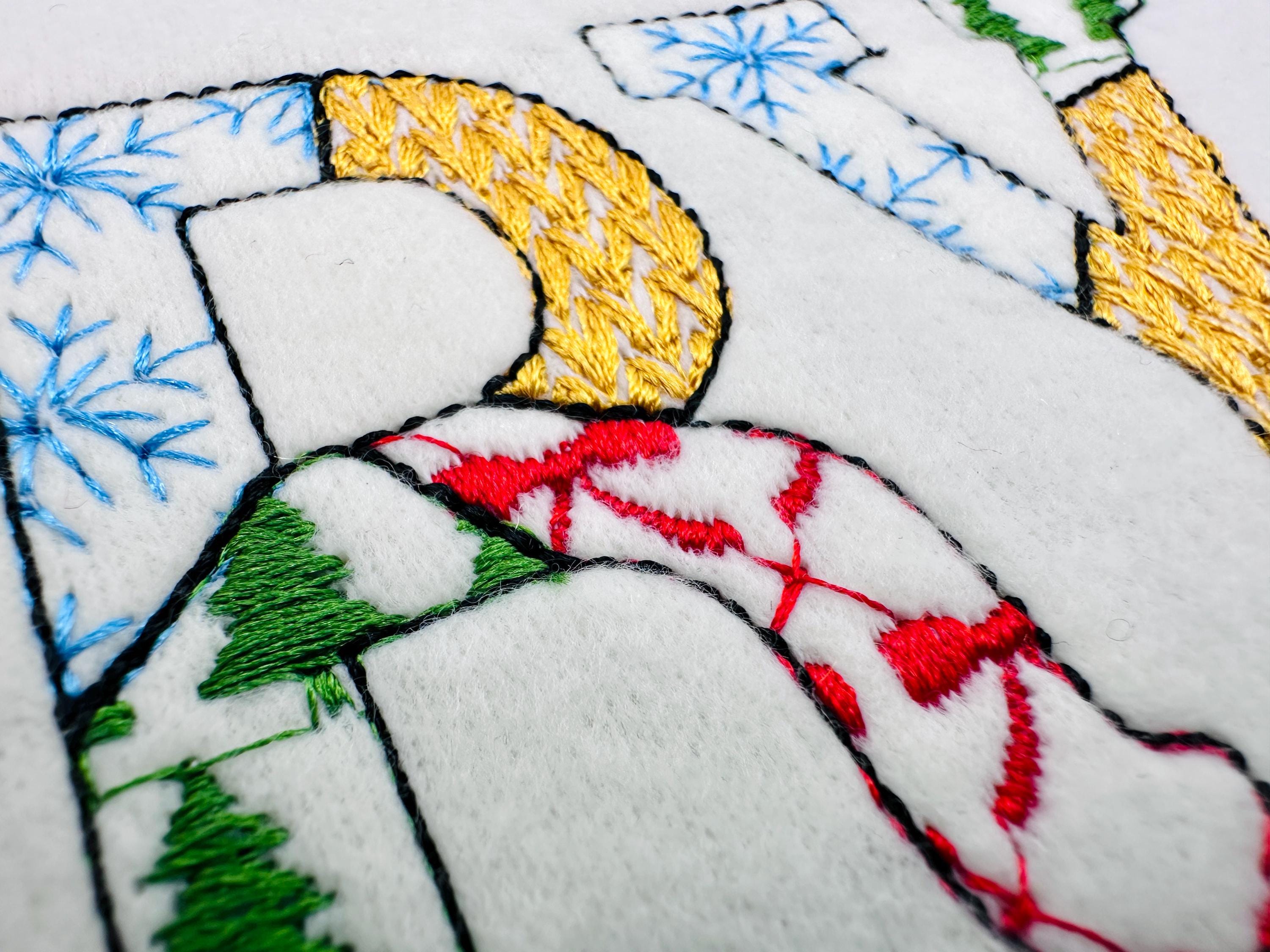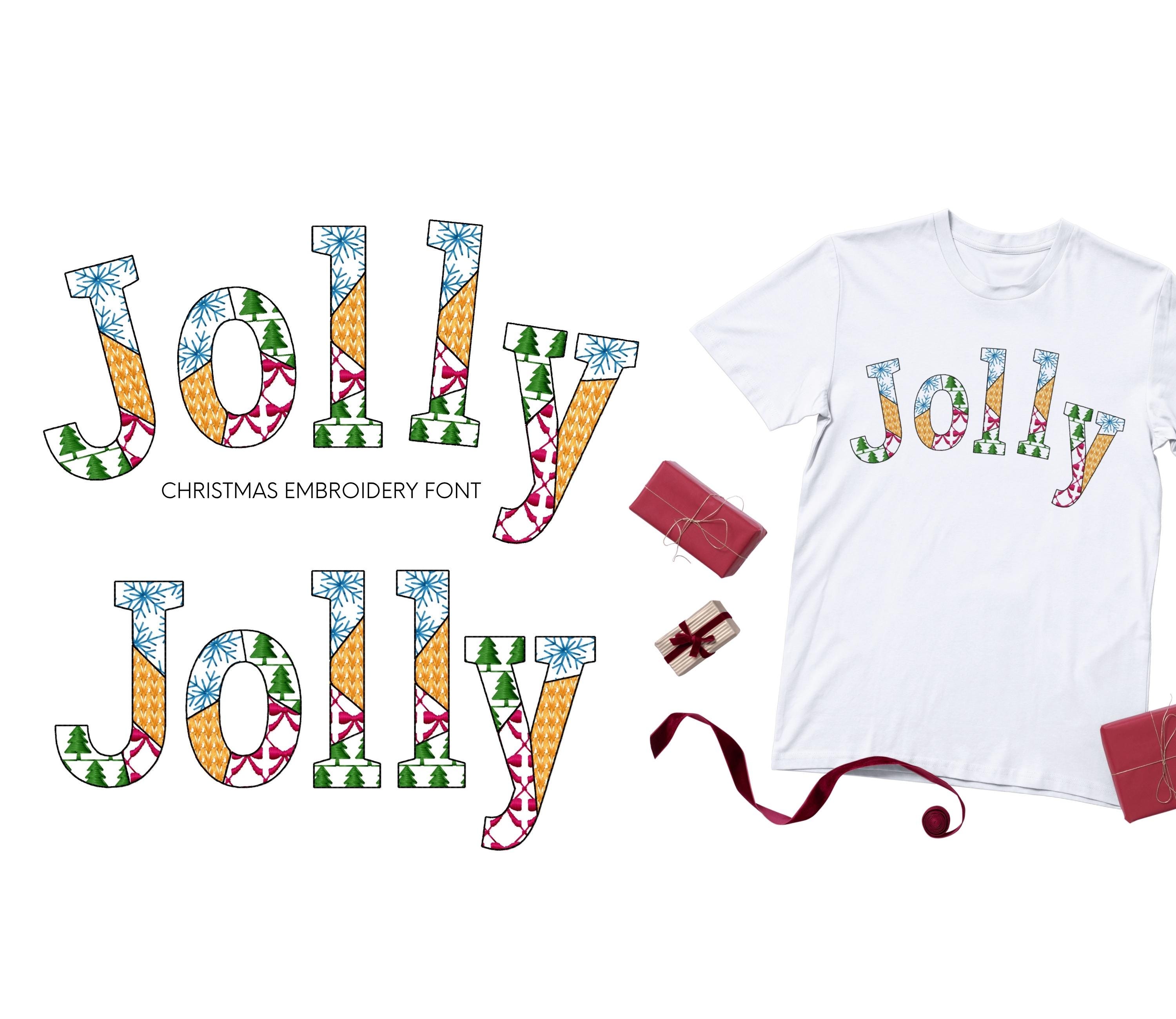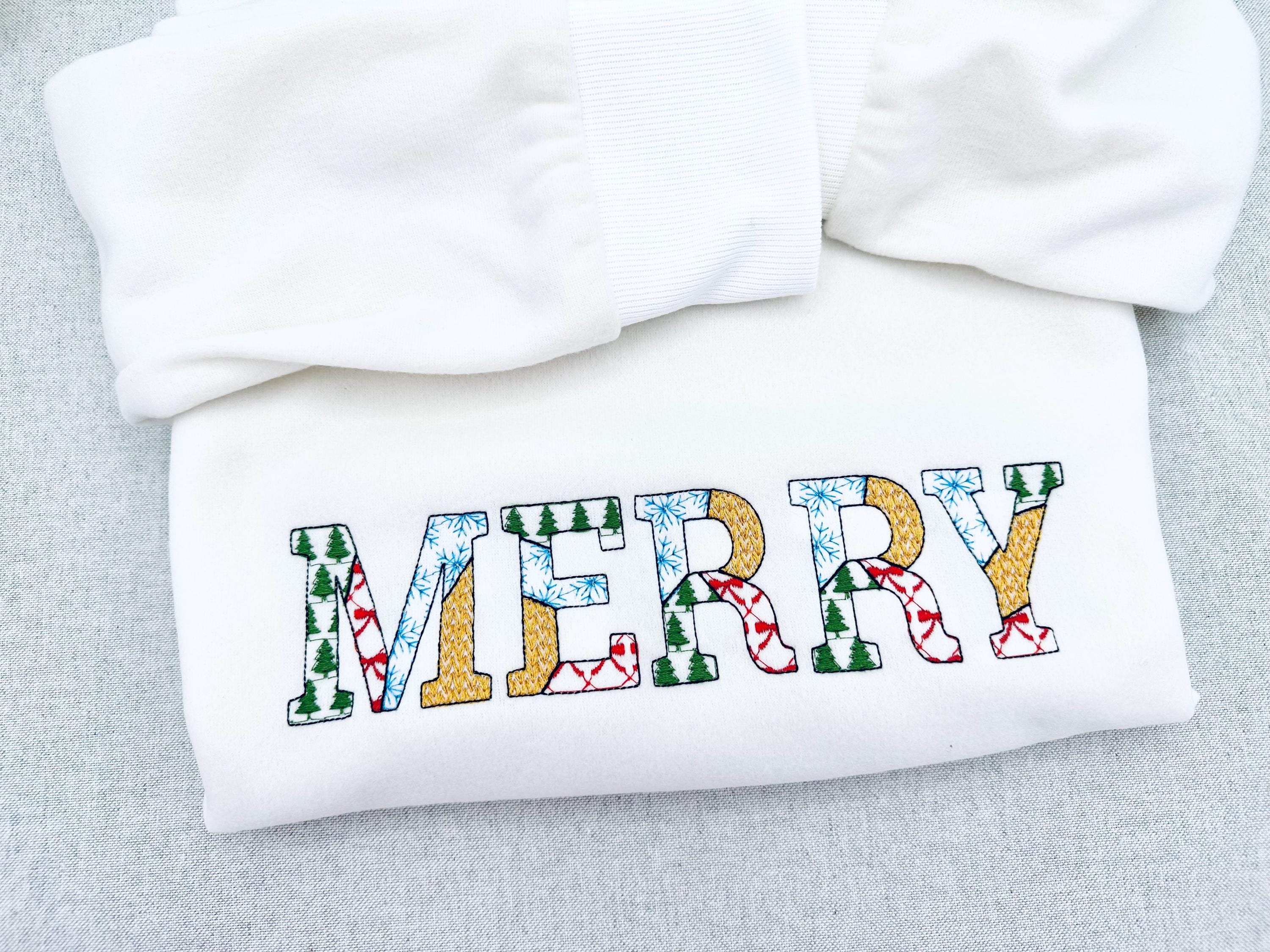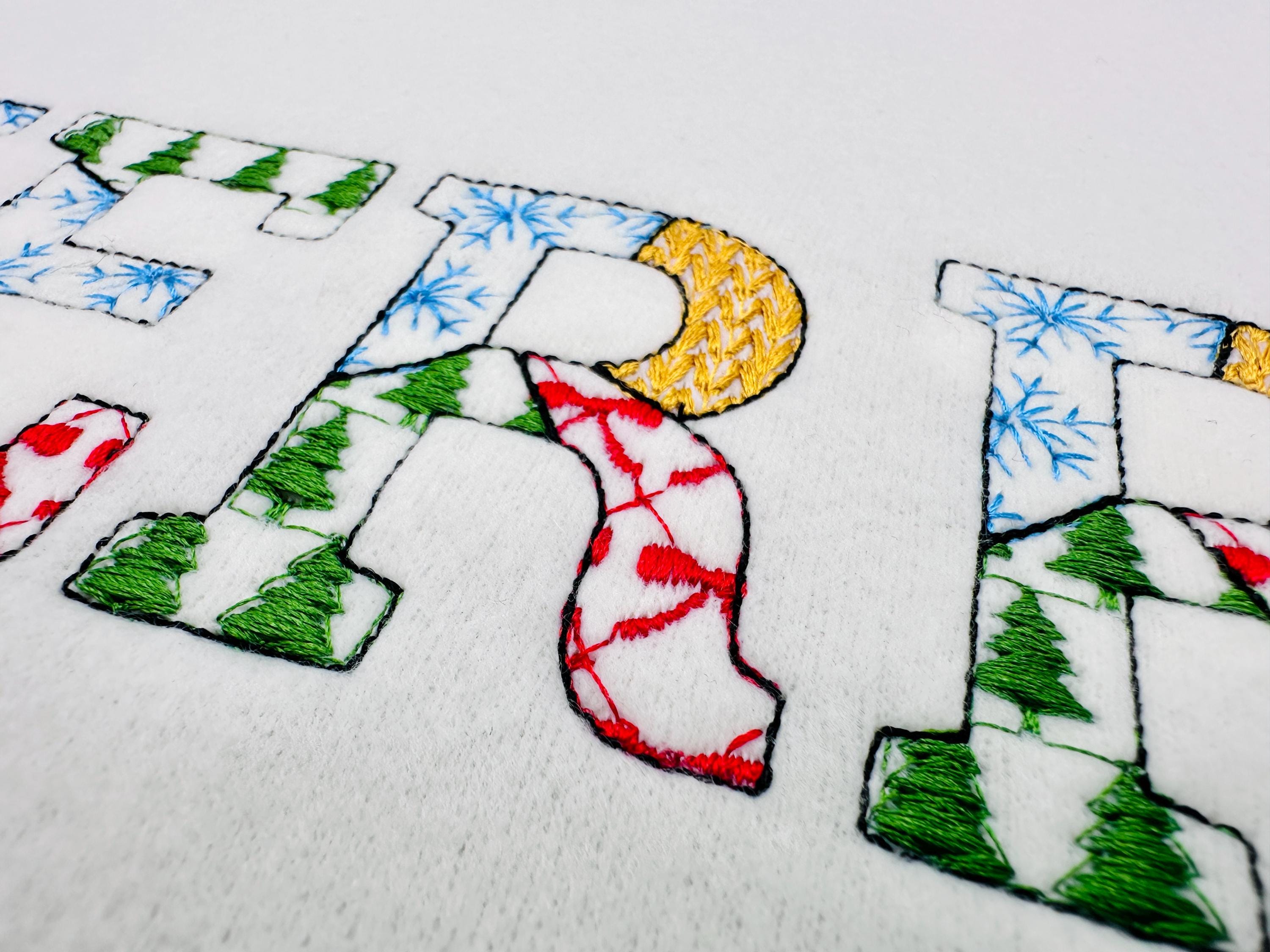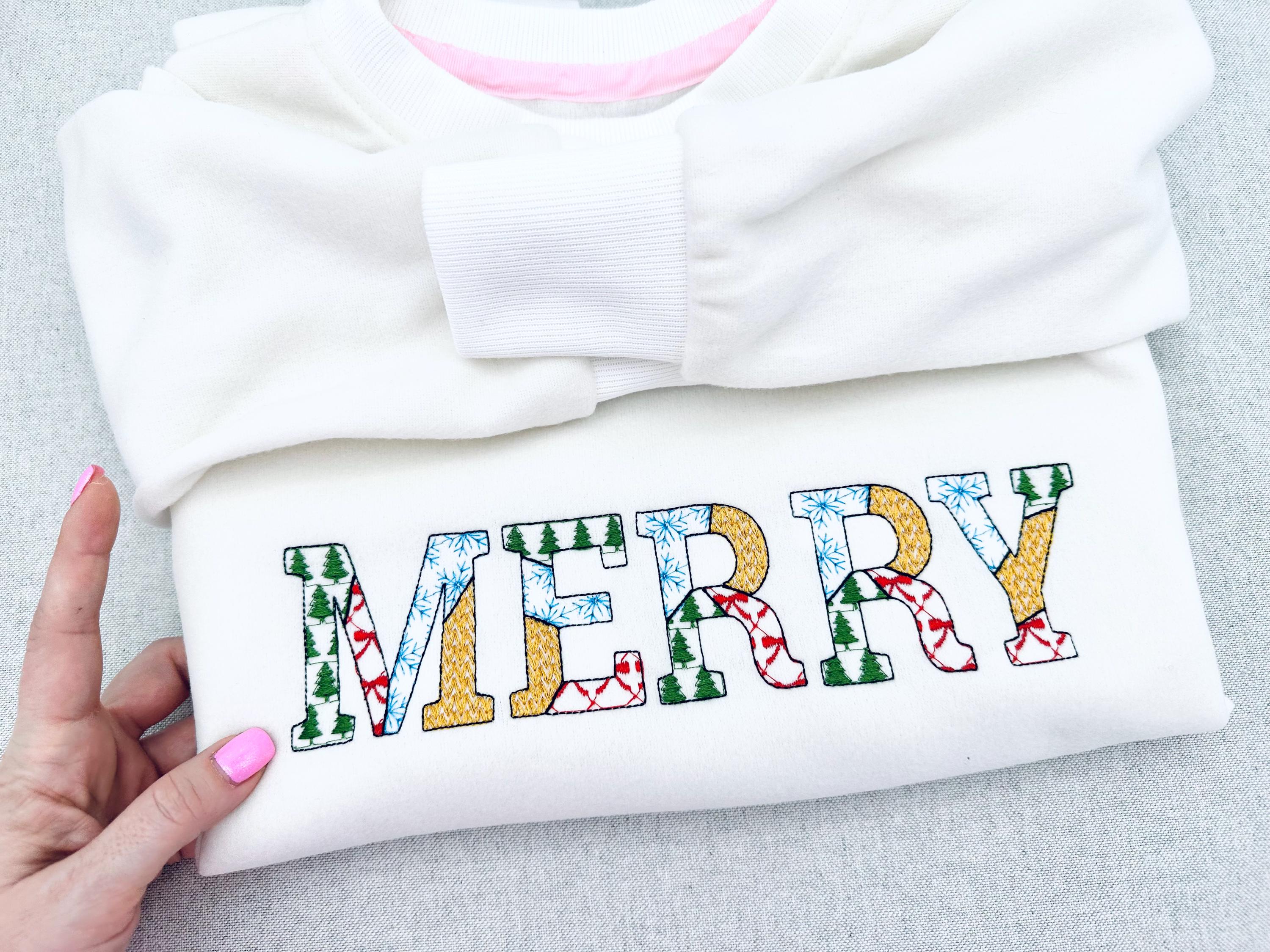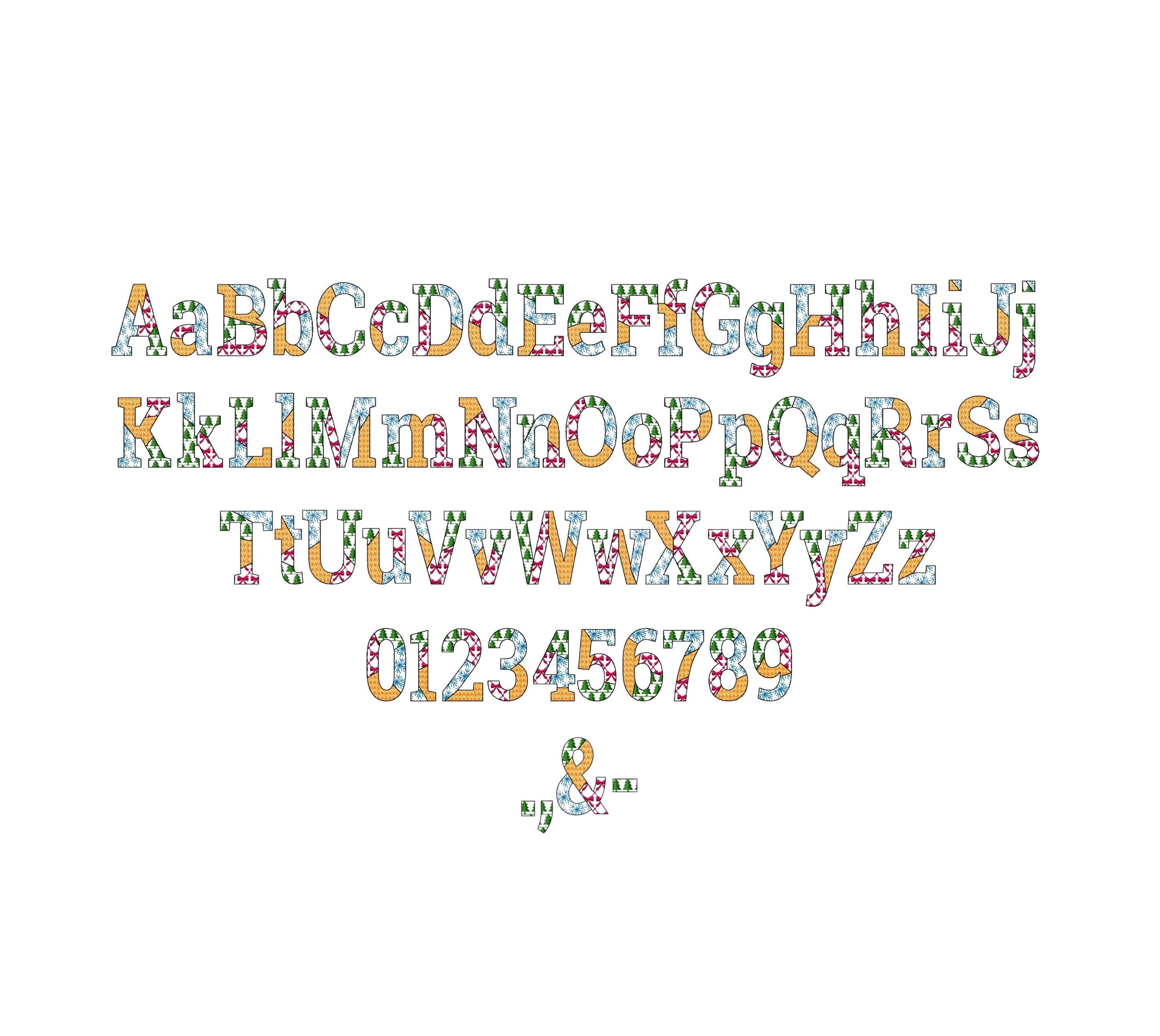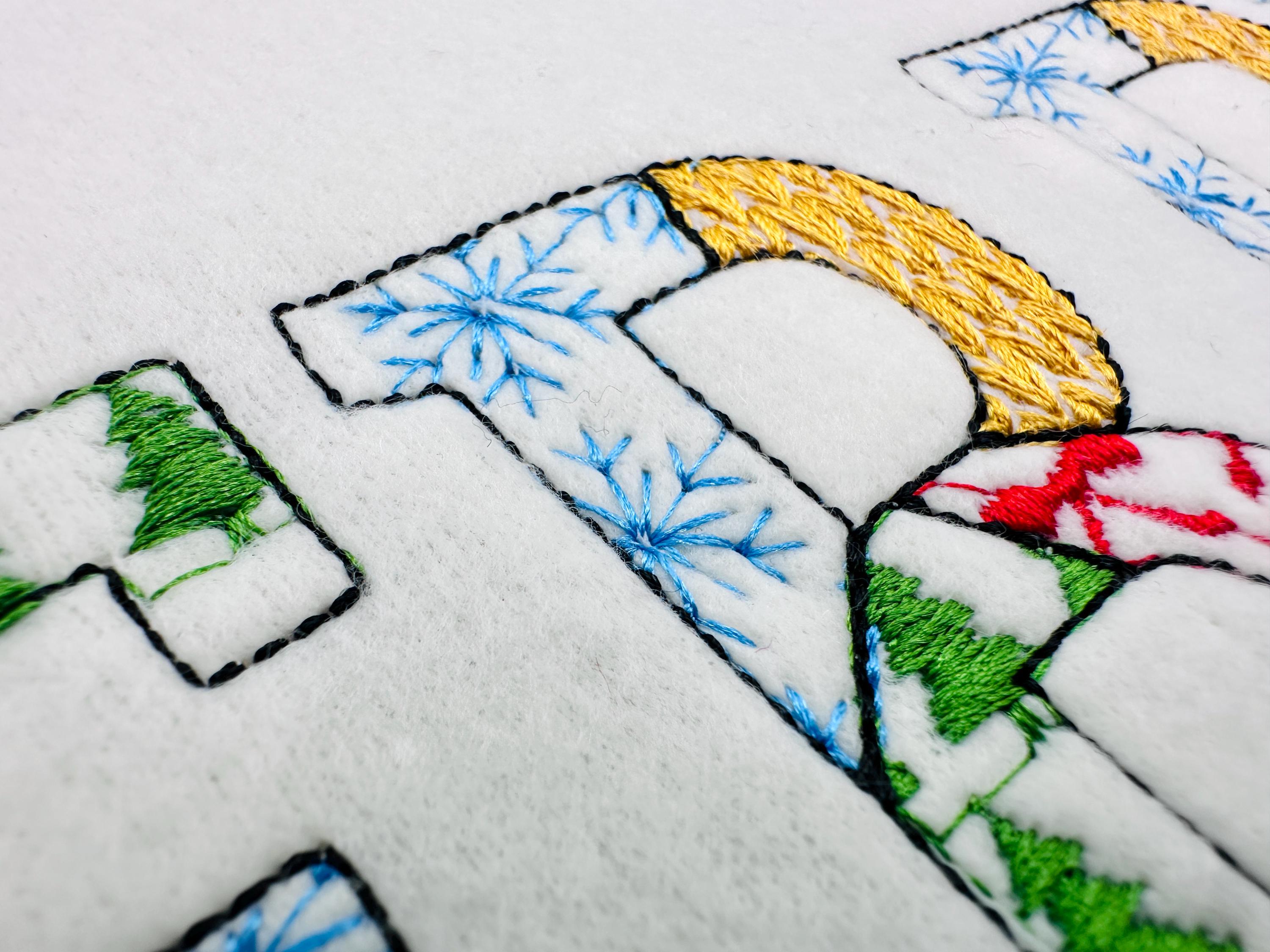
Christmas theme Patterned Block Font Patchwork alphabet Monogram letters numbers machine embroidery designs sizes 1.8 up to 3.5 inch, and BX
The patterns are part of the design. The font is transparent, and the background fabric looks through. Stunning effect!
Whole alphabet Aa-Zz uppercase and lowercase letters, numbers 0-9, and punctuation.